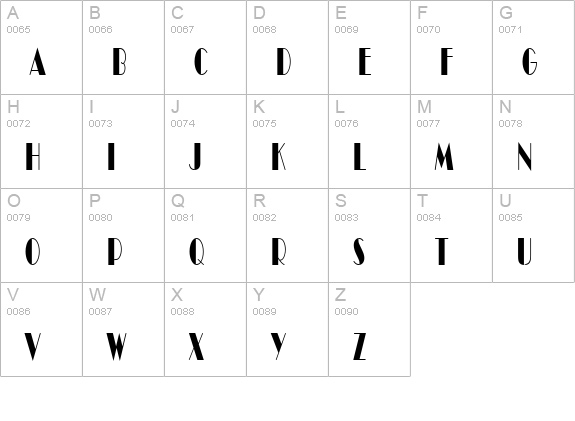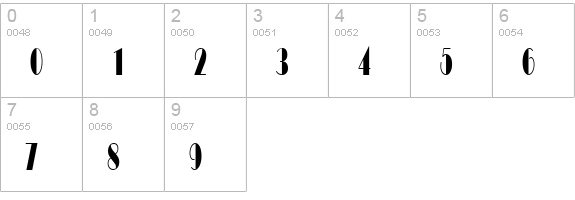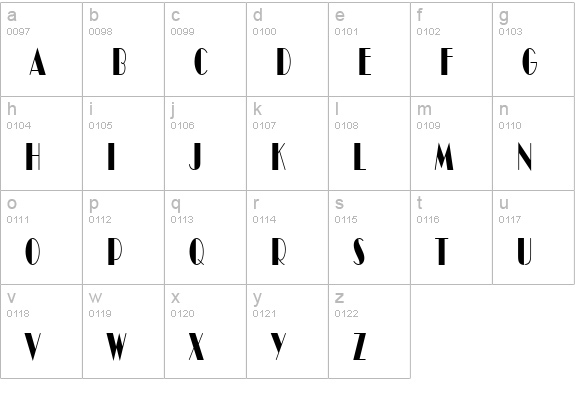
BroadwayComD Font Details
BroadwayComD font is a stylish and bold typeface that exudes elegance and sophistication. Its sleek lines and sharp edges make it perfect for creating eye-catching designs that demand attention. Whether you're designing posters, logos, or headlines, BroadwayComD font will surely make a statement. The best part? BroadwayComD font is completely free! You can easily download it from FontsMarket.com and start using it in your projects right away. With its timeless appeal and versatility, this font is a must-have for any designer looking to add a touch of flair to their work. Let BroadwayComD font elevate your designs to new heights and leave a lasting impression on your audience.